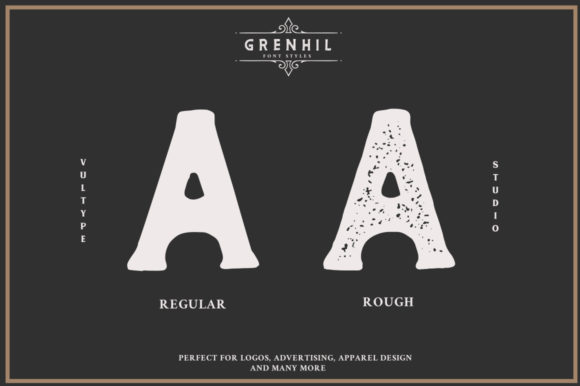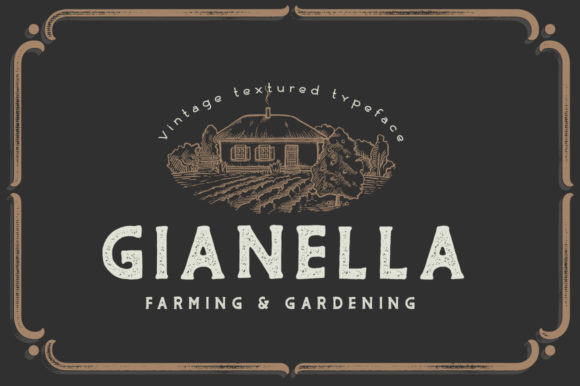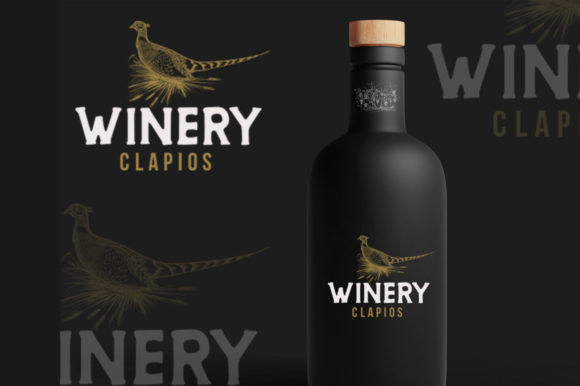
Introduction to Grenhil Font
Have you ever been stuck on a creative project, struggling to find the perfect font to bring your vision to life? You know the feeling – the blank screen staring back at you, the cursor blinking impatiently, and the pressure to deliver something amazing. For designers like you, finding the right font can be the difference between a good design and a great one.
Enter the Grenhil Font, a bold and chunky lettered display font that’s sure to elevate your creative ideas to the next level. This masterfully designed font is a valuable addition to any design resource, offering a high-quality solution for designers looking to make a statement. With its versatility and unique style, the Grenhil Font is perfect for designers who want to add a touch of sophistication and creativity to their projects.
Key Features of Grenhil Font
- Unique, modern font with a transparent background, allowing for versatile use in various design applications.
- Designed to be highly legible and readable, making it suitable for a wide range of creative projects, from logos to digital interfaces.
Honest Review: Grenhil Font
I recently had the chance to work with the Grenhil Font on a creative project, and I must say it’s been a game-changer for my design resource arsenal. The high quality of this font has allowed me to elevate my designs and bring a professional touch to my work.
Here are some of the things that work well with the Grenhil Font:
- ✨ The sleek and modern design makes it perfect for a variety of creative projects.
- ✨ The transparent background option is a huge plus, allowing for easy integration with different design elements.
- ⚠️ The font may not be suitable for very large-scale projects, as it can be quite heavy on system resources.
- ⚠️ Some users may find the font to be a bit too minimalist, which may not be suitable for every design style.
Overall, I’m really impressed with the Grenhil Font, and I would highly recommend it to any designer looking for a high-quality font to add to their design resource collection. With its sleek design and transparent background option, it’s a versatile choice that can be used in a variety of creative projects.
The Grenhil Font is a high-quality design resource ideal for creative projects. Its unique style and versatility make it a valuable asset for designers and artists.
Tips for Getting the Most Out of Grenhil Font
To maximize the use of the Grenhil Font, consider the following tips:
- Experiment with different font sizes and styles to achieve the desired effect.
- Combine the Grenhil Font with transparent backgrounds for a sleek and modern design.
- Use the font in conjunction with other design elements to create a cohesive and visually appealing design.
The Grenhil Font is suitable for a variety of design projects, including:
- Branding materials
- Print materials
- Digital designs
The Grenhil Font is designed to be highly legible at a wide range of font sizes. However, for optimal readability, we recommend using font sizes between 12 and 24 points for body text, and larger font sizes for headings and titles.